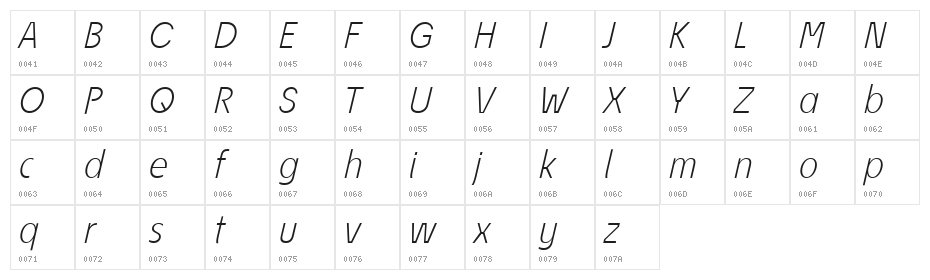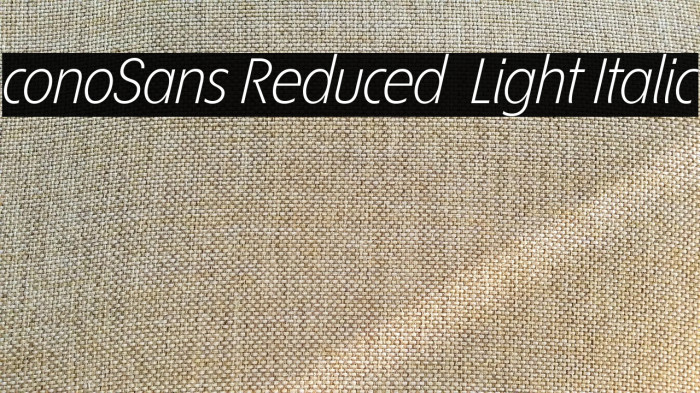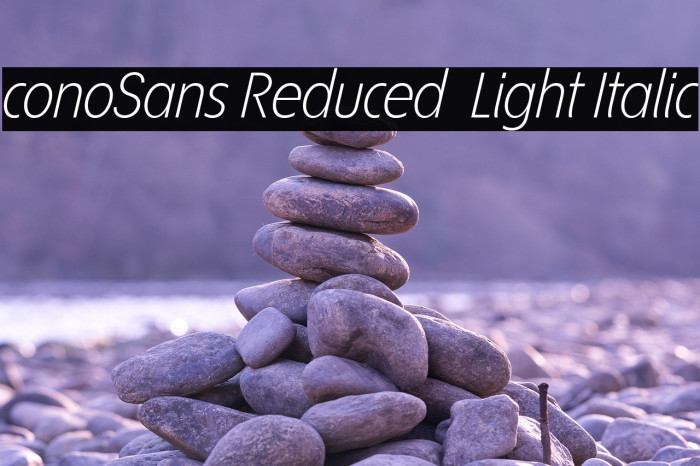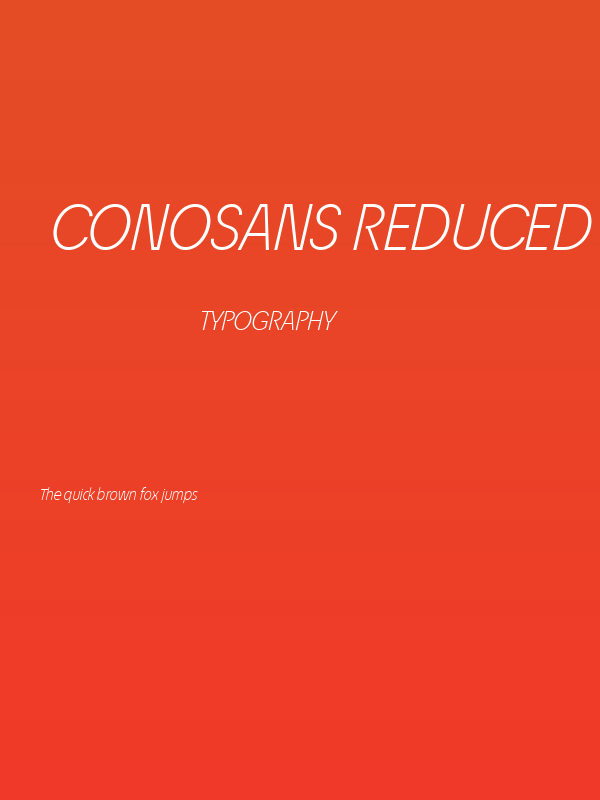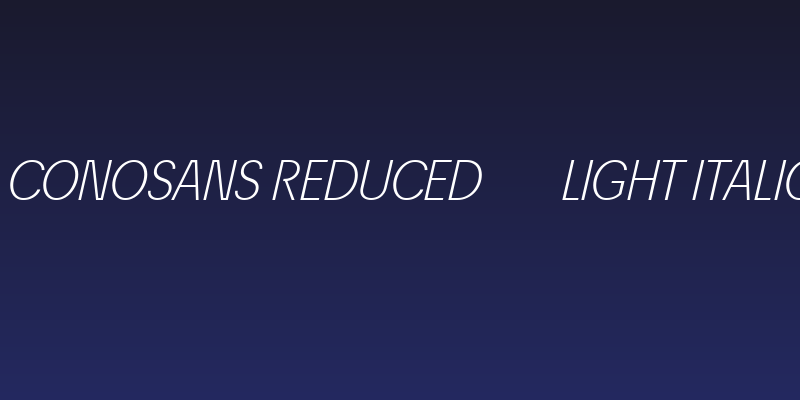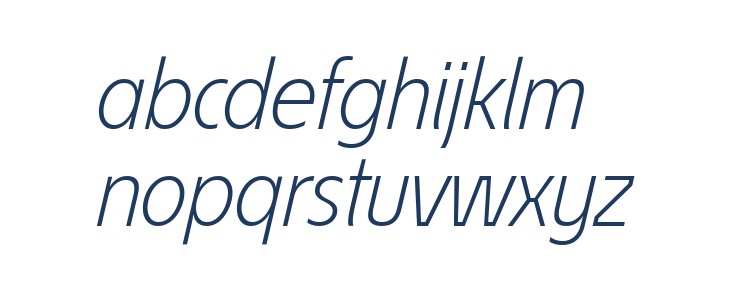
ÉconoSans Reduced 46 Light Italic Font
ÉconoSans Reduced 46 Light Italic Description
This font features a sleek and modern design with a sans-serif style. The characters are slightly elongated with a consistent stroke width, giving it a clean and contemporary appearance. The italicized form adds a dynamic and elegant touch, making it suitable for both professional and creative applications. The font maintains a light weight, which contributes to its airy and open feel. The character spacing is normal, ensuring readability while maintaining a stylish aesthetic. This font is ideal for projects that require a sophisticated yet approachable look.
| Proposed Projects | Ideal for branding, editorial design, websites, and advertising materials that require a modern and elegant touch. |